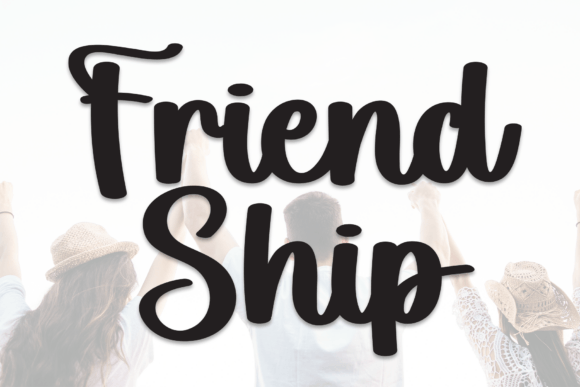
Introducing Friend Ship Font: The Perfect Blend of Whimsy and Sophistication
In the world of typography, fonts play a crucial role in conveying the tone and personality of a brand, product, or message. When it comes to creating a lasting impression, the right font can make all the difference. If you’re looking for a typeface that exudes joy, fun, and a touch of sophistication, look no further than Friend Ship Font. This charming, handwritten font is designed to add a delightful sweetness and friendly aura to your designs, making it perfect for wedding invitations, cards, and any project that requires a whimsical, fun-loving touch.
What Makes Friend Ship Font So Special?
- Handwritten with love: Friend Ship Font is a carefully crafted, handwritten typeface that boasts a unique, personal touch. Its subtle yet vivacious style makes it perfect for adding a human element to your designs.
- Delightful sweetness: This font is infused with a charming sweetness that is sure to captivate your audience. Its friendly aura makes it perfect for creating designs that are approachable, relatable, and engaging.
- Perfect blend of playfulness and sophistication: Friend Ship Font strikes the perfect balance between playful charm and gentle sophistication. Its whimsical design makes it perfect for fun-loving projects, while its elegant style ensures it remains suitable for more formal applications.
10 Creative Ways to Use Friend Ship Font
- Wedding invitations: Add a touch of whimsy and romance to your wedding invitations with Friend Ship Font. Its elegant yet playful design makes it perfect for couples looking for a unique and personalized way to share their special day.
- Birthday cards: Create custom birthday cards that are sure to delight with Friend Ship Font. Its friendly aura and playful design make it perfect for kids’ and adults’ birthday cards alike.
- Social media graphics: Elevate your social media presence with custom graphics created using Friend Ship Font. Its fun-loving design makes it perfect for creating engaging and shareable content.
- Branding and packaging: Add a personal touch to your branding and packaging with Friend Ship Font. Its unique design makes it perfect for creating a memorable and distinctive brand identity.
- Stationery and letterheads: Create custom stationery and letterheads that reflect your personality with Friend Ship Font. Its elegant design makes it perfect for formal and informal correspondence.
- Party decorations: Create custom party decorations, such as banners and garlands, using Friend Ship Font. Its playful design makes it perfect for adding a touch of whimsy to any celebration.
- Digital invitations: Create custom digital invitations for events, meetings, or parties using Friend Ship Font. Its friendly aura and playful design make it perfect for creating engaging and interactive invitations.
- Menu boards and signage: Add a touch of personality to your menu boards and signage with Friend Ship Font. Its elegant design makes it perfect for restaurants, cafes, and retail stores.
- Infographics and presentations: Create engaging infographics and presentations using Friend Ship Font. Its playful design makes it perfect for adding a touch of whimsy to your data visualizations and slide decks.
- Custom gifts and merchandise: Create custom gifts and merchandise, such as t-shirts, mugs, and tote bags, using Friend Ship Font. Its unique design makes it perfect for creating one-of-a-kind items.
Typography Tips for Using Friend Ship Font
- Pair with contrasting fonts: Pair Friend Ship Font with contrasting fonts to create visual interest and hierarchy. Try pairing it with a bold, sans-serif font for a striking contrast.
- Experiment with colors: Experiment with different colors to find the perfect match for your design. Friend Ship Font looks great in pastel colors, bold brights, and elegant metallics.
- Use varying font sizes: Use varying font sizes to create visual hierarchy and emphasize important information. Friend Ship Font looks great in large display sizes and smaller body text.
Friend Ship Font is a charming, handwritten typeface that is sure to add a touch of whimsy and sophistication to your designs. With its delightful sweetness and friendly aura, it’s perfect for creating wedding invitations, cards, and any design project that requires a fun-loving touch. Whether you’re a designer, artist, or DIY enthusiast, Friend Ship Font is the perfect choice for adding a personal touch to your creations. So why wait? Download Friend Ship Font today and experience the charismatic appeal of this beautiful font for yourself!